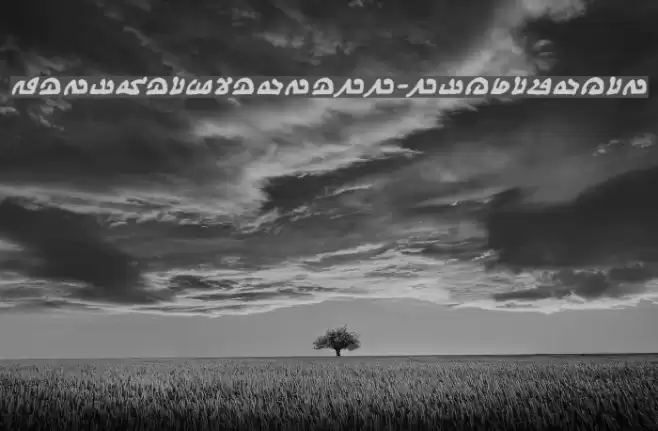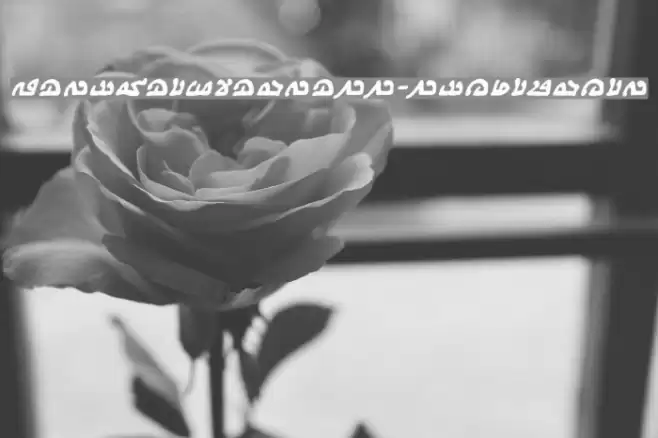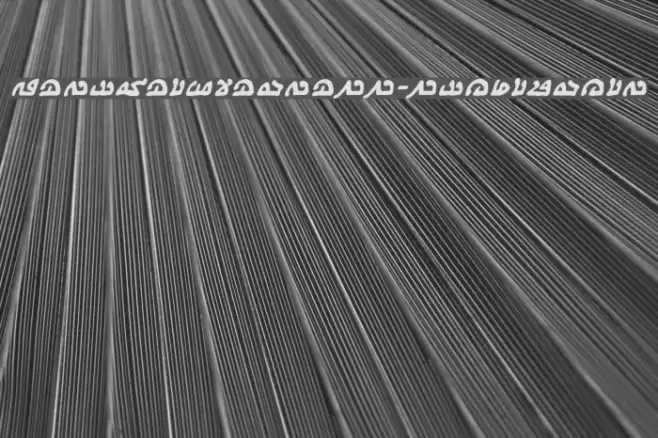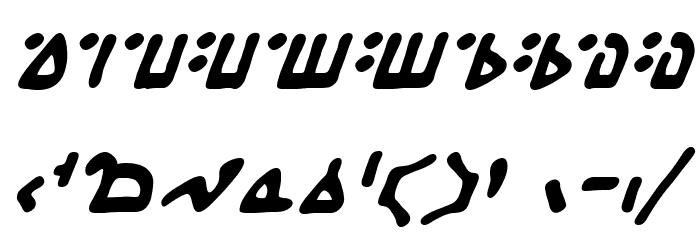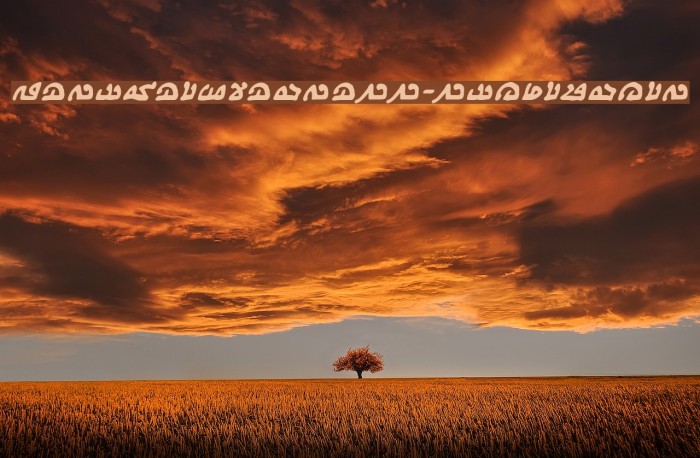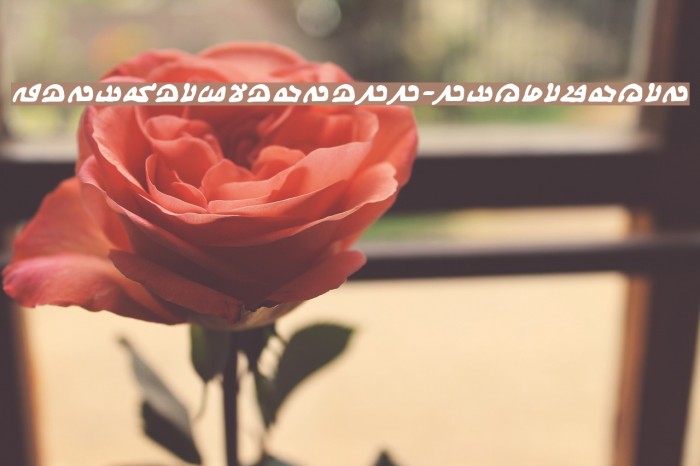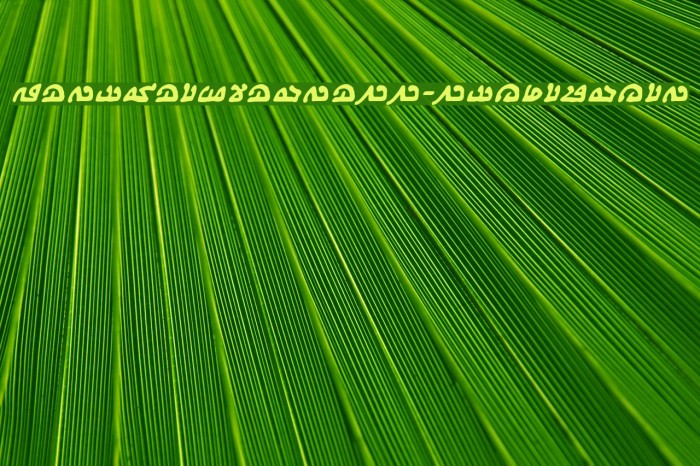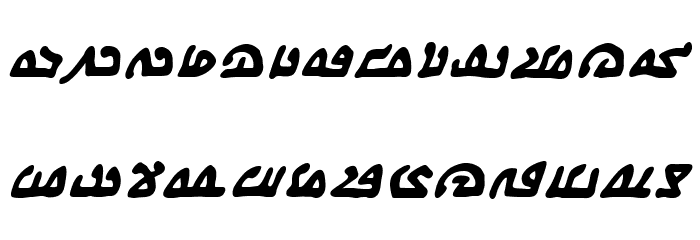
WeComeInPeaceBB-BoldItalic Font
WeComeInPeaceBB-BoldItalic Description
This font features a playful and whimsical design, characterized by its bold and italicized style. The letters are rounded and have a smooth, flowing appearance, giving it a friendly and approachable feel. The strokes are consistent in thickness, providing a uniform look across all characters. The font includes both uppercase and lowercase letters, numbers, and a selection of special characters. Its unique style makes it stand out, making it suitable for creative and informal projects.
A bold, italicized font with a playful and whimsical design from Uncategorized fonts.
- Proposed Projects: Ideal for children's books, playful branding, posters, and creative invitations.
- Overall Style: Playful